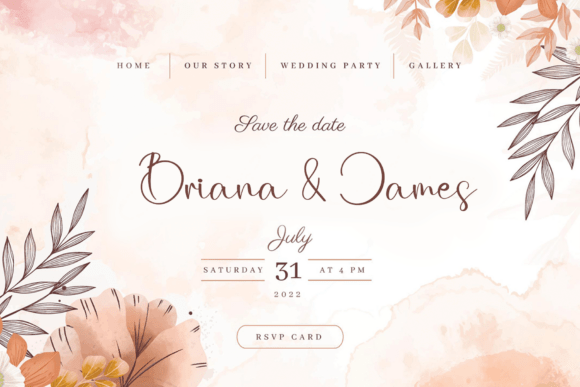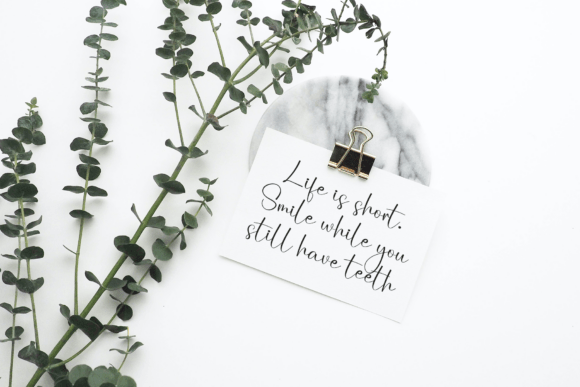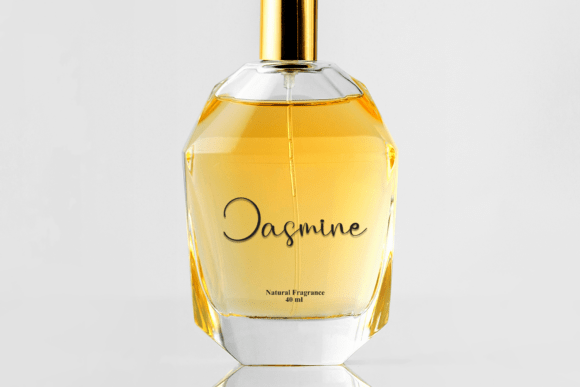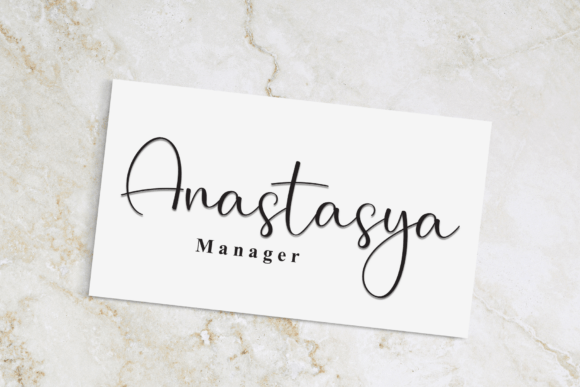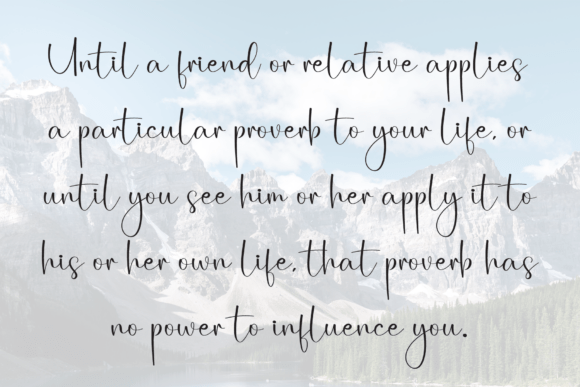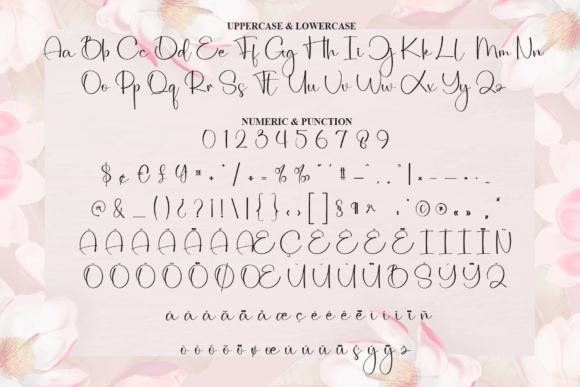
Introducing Beautiful Font: Elevate Your Designs with Elegance and Playfulness
Are you looking for a font that can add a touch of sophistication and whimsy to your designs? Look no further than Beautiful Font, a stylish handwritten script font that captures the essence of elegance and playfulness in every stroke. With its flowing curves and natural rhythm, Beautiful Font is the perfect choice for designers and crafters who want to add a personal, charming touch to their projects.
The Characteristics of Beautiful Font
Beautiful Font is a carefully crafted handwritten script font that boasts a range of characteristics that make it truly unique. Its flowing curves and natural rhythm give it a sense of movement and fluidity, making it perfect for designs that require a touch of elegance and sophistication. The font’s strokes are carefully modulated to create a sense of depth and dimensionality, adding to its overall charm and appeal.
Uses for Beautiful Font
Beautiful Font is an incredibly versatile font that can be used in a wide range of design applications. Here are just a few ideas to get you started:
- Invitations: Whether you’re planning a wedding, birthday party, or baby shower, Beautiful Font is the perfect choice for creating elegant and eye-catching invitations.
- Branding: Add a touch of personality and whimsy to your brand with Beautiful Font. It’s perfect for logos, business cards, and other marketing materials.
- Social Media: Stand out on social media with Beautiful Font. Use it to create eye-catching graphics, quotes, and other posts that showcase your personality and style.
- Crafting: Beautiful Font is also perfect for crafters who love to create handmade cards, gift tags, and other paper crafts.
The Benefits of Using Beautiful Font
So why choose Beautiful Font for your next design project? Here are just a few benefits to consider:
- Elegance: Beautiful Font adds a touch of elegance and sophistication to any design, making it perfect for high-end brands and special occasions.
- Playfulness: Despite its elegant appearance, Beautiful Font also has a playful side, making it perfect for designs that require a touch of whimsy and personality.
- Warmth: The font’s natural rhythm and flowing curves give it a warm and inviting feel, making it perfect for designs that require a personal touch.
- Creativity: Beautiful Font is the perfect choice for designers and crafters who want to add a touch of creativity and originality to their designs.
Tips for Using Beautiful Font
Here are a few tips to keep in mind when using Beautiful Font in your designs:
- Use it sparingly: While Beautiful Font is certainly eye-catching, it can be overwhelming if used too much. Use it sparingly to add a touch of elegance and whimsy to your designs.
- Pair it with other fonts: Beautiful Font pairs well with a range of other fonts, including serif and sans serif fonts. Experiment with different pairings to find the one that works best for your design.
- Experiment with colors: Beautiful Font looks great in a range of colors, from bold and bright to soft and pastel. Experiment with different colors to find the one that works best for your design.
In conclusion, Beautiful Font is a stylish handwritten script font that captures the essence of elegance and playfulness in every stroke. With its flowing curves and natural rhythm, it’s the perfect choice for designers and crafters who want to add a personal, charming touch to their designs. Whether you’re creating invitations, branding materials, or social media graphics, Beautiful Font is sure to elevate your designs and add a touch of sophistication and whimsy. So why wait? Try Beautiful Font today and see the difference it can make in your designs!